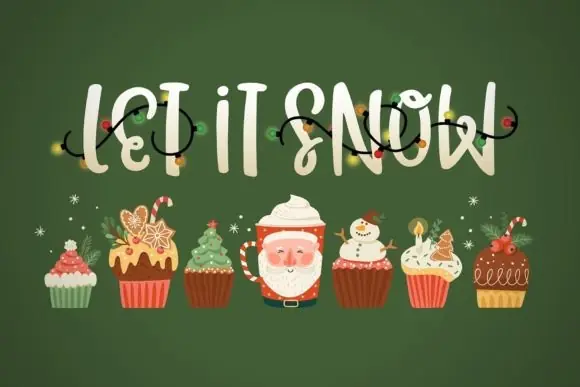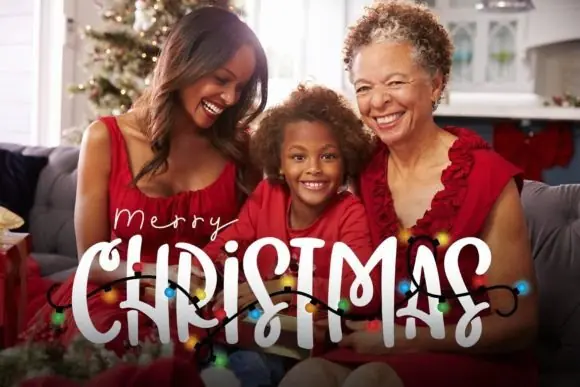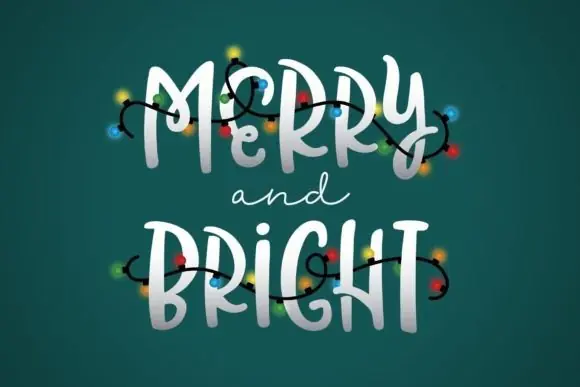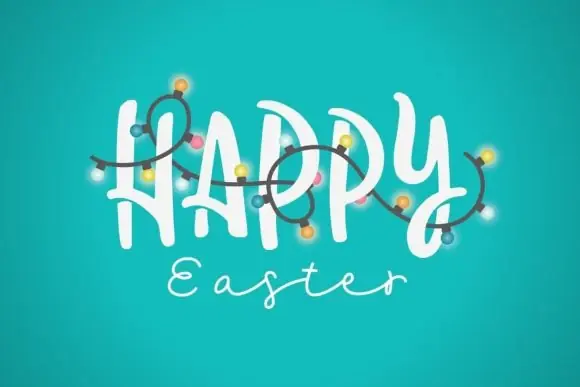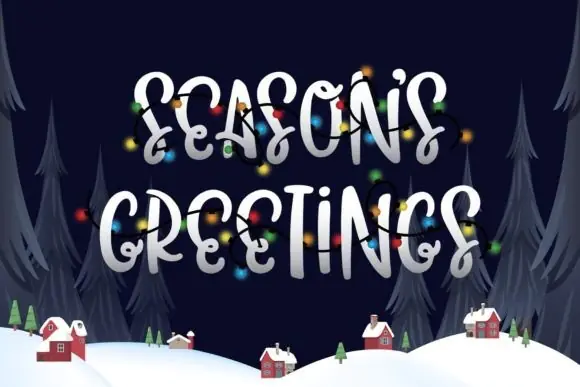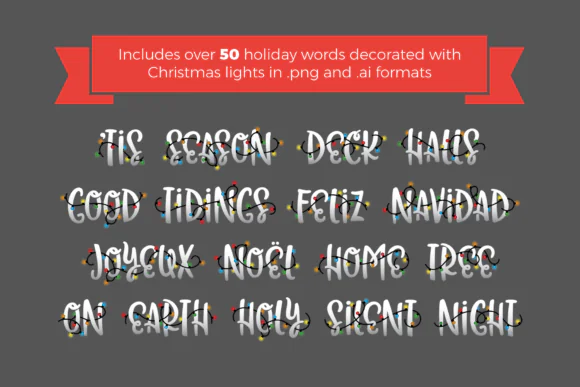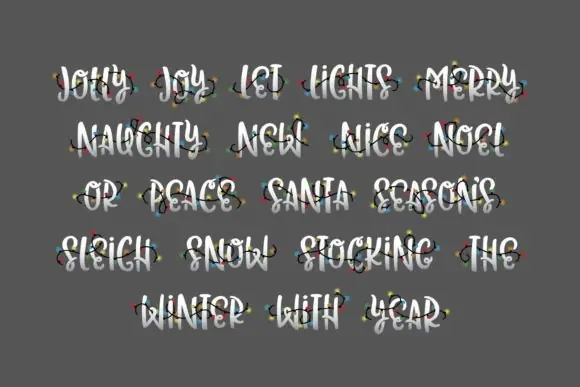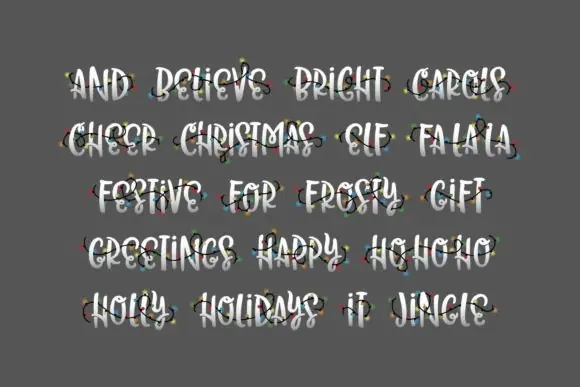
Create bright, festive, and eye-catching holiday designs with Christmas Lights Font, a bold all-caps Christmas font full of character and seasonal charm.
This font is perfect for projects that need a strong, cheerful, and decorative Christmas look. The pack includes holiday words decorated with stringed lights, making it ideal for festive typography, Christmas posters, greeting cards, invitations, t-shirt designs, mugs, stickers, wall art, sublimation projects, product labels, packaging, and digital graphics.
Christmas Lights Font brings the joyful feeling of glowing holiday decorations into your designs. Its bold uppercase style makes headlines, quotes, and seasonal messages stand out clearly, while the light-decorated words add a fun and creative Christmas touch.
Christmas Lights Font is a great choice for designers, crafters, and small business owners who want to create bright, joyful, and memorable Christmas designs with a bold festive personality.